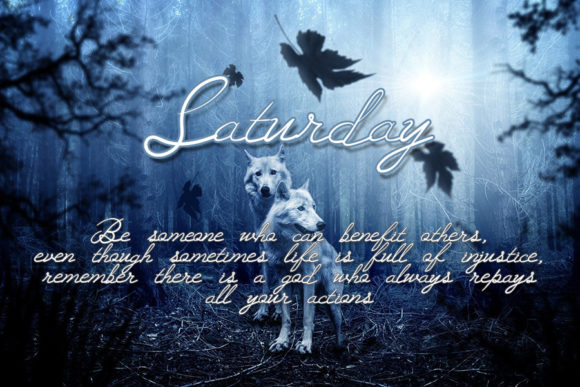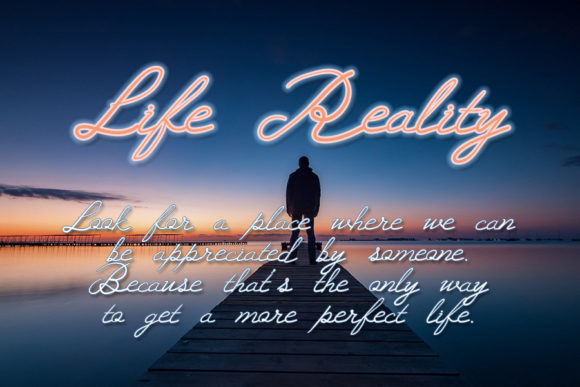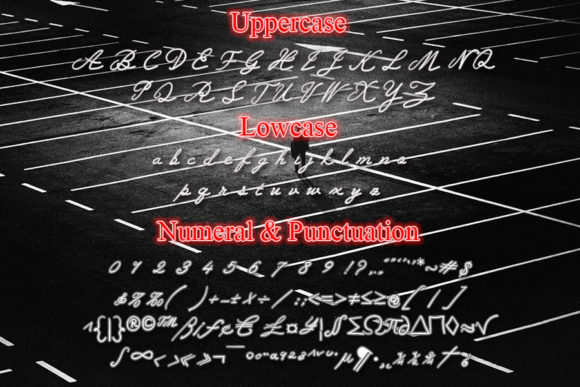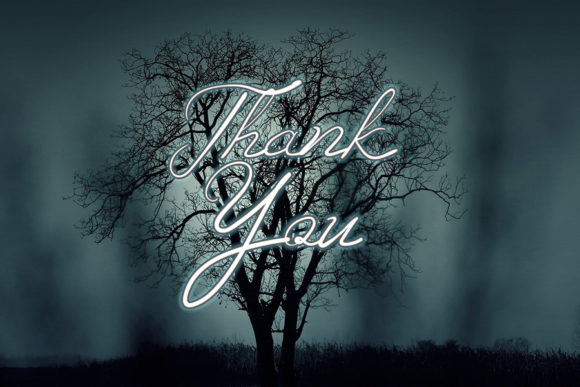
Dancing in the Dark Font: Elevate Your Designs with a Timeless Handwritten Style
Are you a designer or crafter looking for a font that can add a touch of elegance and sophistication to your work? Look no further than the Dancing in the Dark font. This lovely and timeless handwritten font is perfect for creating eye-catching logos, branding, and quotes that will leave a lasting impression on your audience.
The Unique Charm of Dancing in the Dark Font
What sets Dancing in the Dark font apart from other fonts is its unique and beautiful touch. Every letter has been carefully crafted to have its own distinct character, making it a standout choice for designers who want to add a personal touch to their work. Whether you’re creating a logo, branding materials, or social media graphics, this font is sure to make your design come alive.
Dancing in the Dark font is a versatile font that can be used for a wide range of design projects. Whether you’re a professional designer or a crafter who loves to create handmade cards and gift tags, this font is the perfect choice. Its elegant and sophisticated style makes it ideal for:
- Creating eye-catching logos and branding materials
- Designing beautiful quotes and social media graphics
- Adding a personal touch to handmade cards and gift tags
- Creating stunning wedding invitations and stationery
Why Choose Dancing in the Dark Font?
So why choose Dancing in the Dark font over other fonts? Here are just a few reasons why this font stands out:
- Unique and Beautiful Touch: Every letter has a unique and beautiful touch that will make your design stand out.
- Timeless Style: The Dancing in the Dark font has a timeless style that will never go out of fashion.
- Elegant and Sophisticated: This font is perfect for designers who want to add a touch of elegance and sophistication to their work.
- Versatile: Dancing in the Dark font can be used for a wide range of design projects, from logos and branding to social media graphics and handmade cards.
Tips for Using Dancing in the Dark Font
Here are a few tips for using Dancing in the Dark font in your design projects:
- Use it as a Headline Font: Dancing in the Dark font is perfect for use as a headline font, adding a touch of elegance and sophistication to your design.
- Pair it with Other Fonts: This font pairs well with other fonts, so don’t be afraid to experiment with different combinations.
- Use it for Quotes and Social Media Graphics: Dancing in the Dark font is perfect for creating beautiful quotes and social media graphics that will grab the attention of your audience.
In conclusion, Dancing in the Dark font is a lovely and timeless handwritten font that is perfect for designers and crafters who want to add a touch of elegance and sophistication to their work. With its unique and beautiful touch, timeless style, and versatile design, this font is sure to become a favorite in your design arsenal. So why wait? Download Dancing in the Dark font today and start creating stunning designs that will leave a lasting impression on your audience.
Whether you’re a professional designer or a crafter who loves to create handmade cards and gift tags, Dancing in the Dark font is the perfect choice. Its elegant and sophisticated style makes it ideal for a wide range of design projects, from logos and branding to social media graphics and handmade cards. So go ahead, get creative, and see what amazing designs you can create with Dancing in the Dark font!